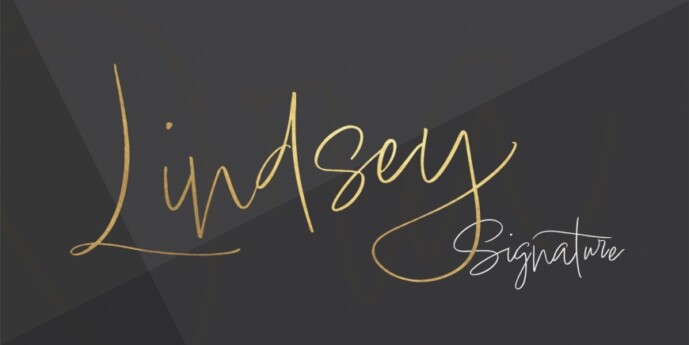
Lindsey Signature Font
Designer: Crystal Kluge
Lindsey Signature Font is a casual script font mimicking the spirit & style of natural handwriting. Opentype features include ligatures and alternate glyphs which add to it’s personality and authenticity to your words. Plus a new bonus icon set. It’s a perfect choice for editorials, advertising and social media campaigns. Think fashion and lifestyle. Full European language support.